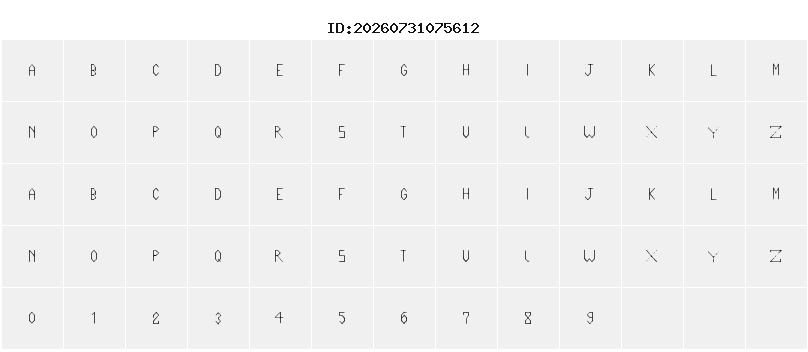
Liner34 Preview
• Font Name: Liner34
• Designer: Max Infeld
• Manufacturer: Xerographer Fonts
• Description: This font at Ojai,CA monospace rough straightlines
About Liner34.ttf
Liner34.ttf is a modern, elegant sans-serif font designed for ultimate readability and visual harmony. Perfect for branding, headlines, web design, and print materials.